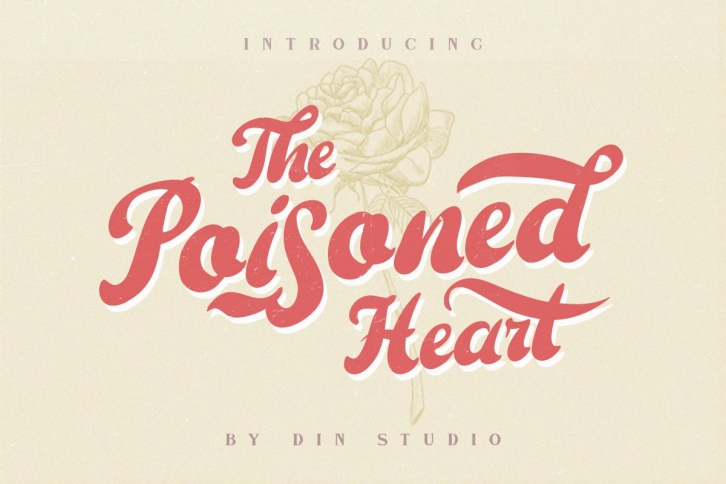
The Poisoned Heart is a great font that was designed by Din Studio. Imagine the amount of combinations you can create using this font! The archive is 10.30 MB and it was released on July 17, 2020. The Poisoned Heart looks beautiful on wedding invitations, greeting cards, logos, posters, labels, t-shirt designs, logos, business cards and is perfect for use in ink or watercolor works, fashion, magazines, packaging and food menus, children's books and more!